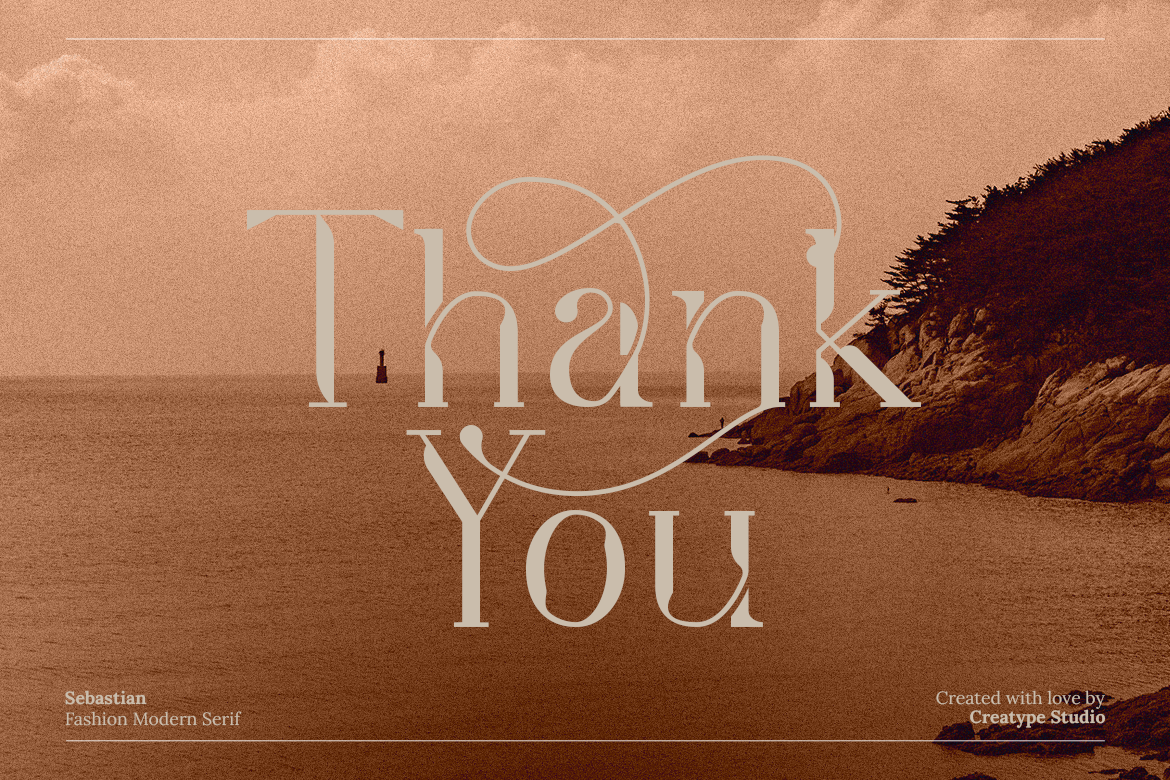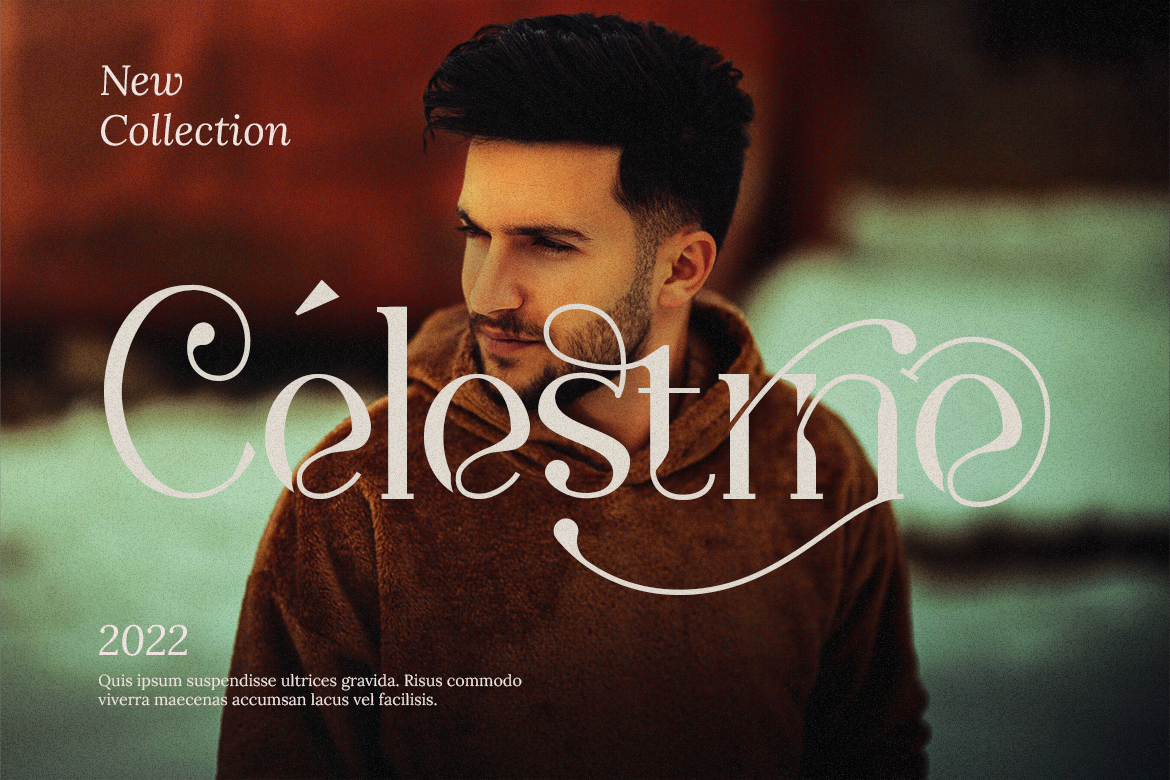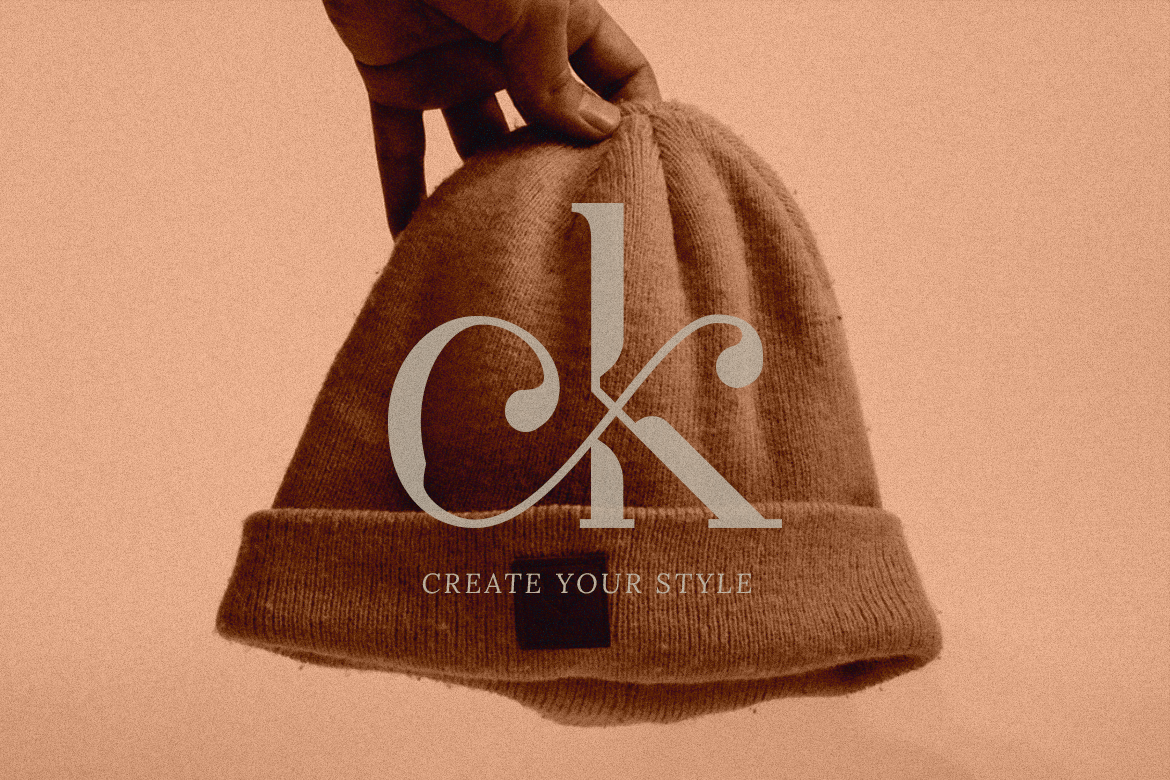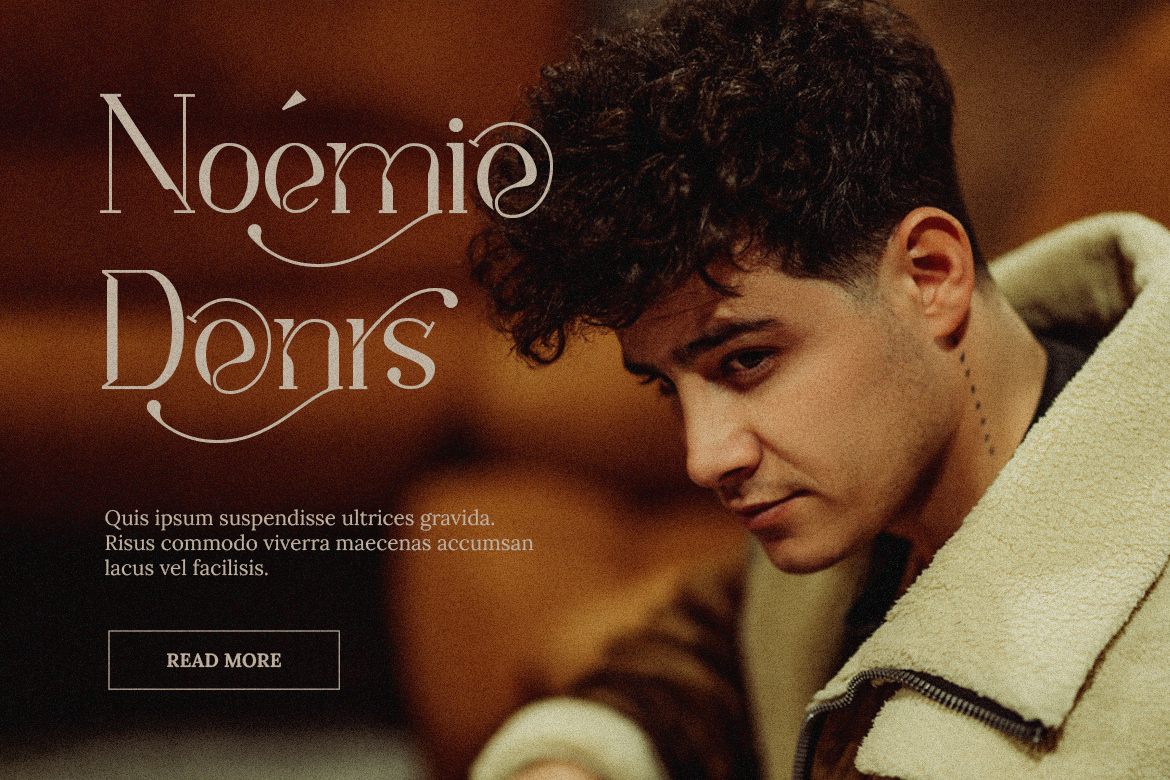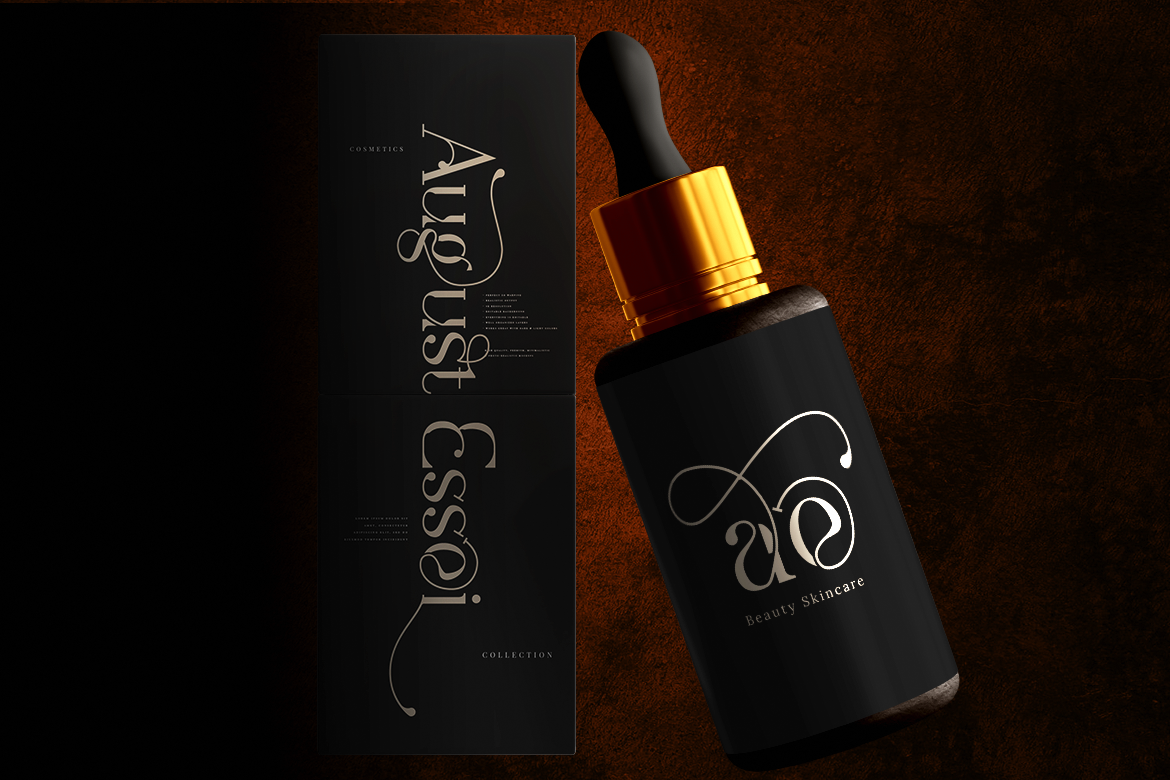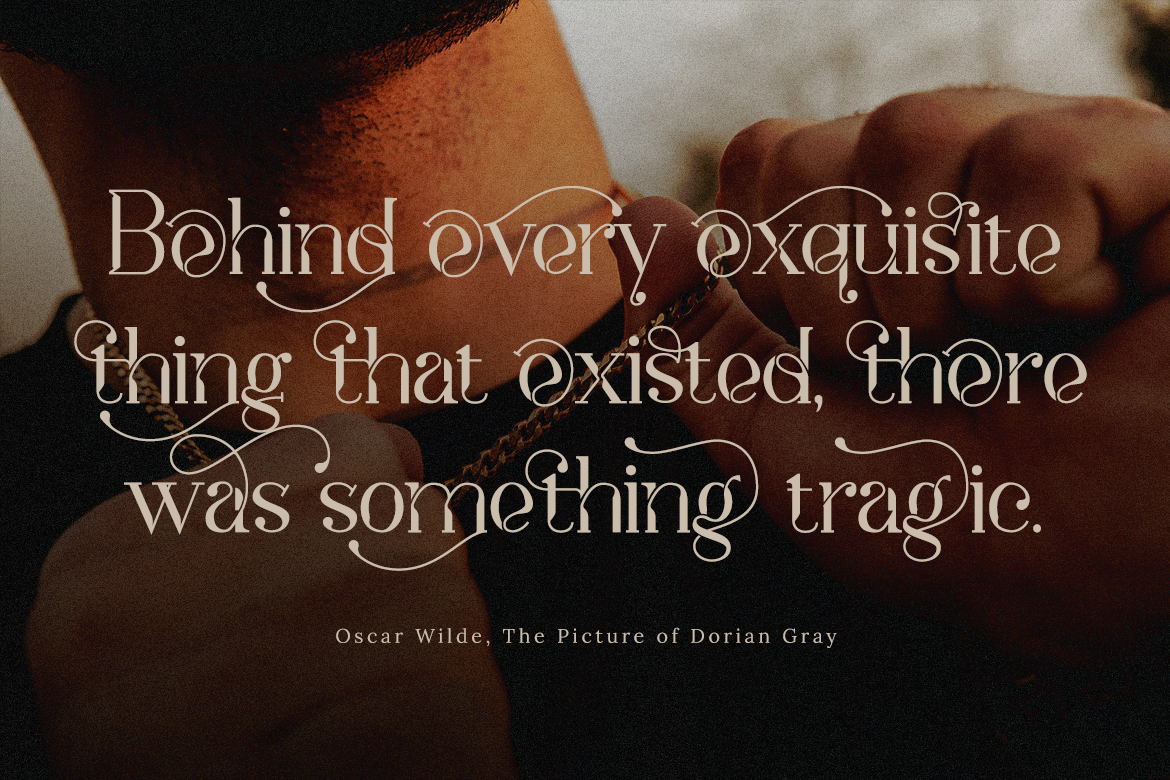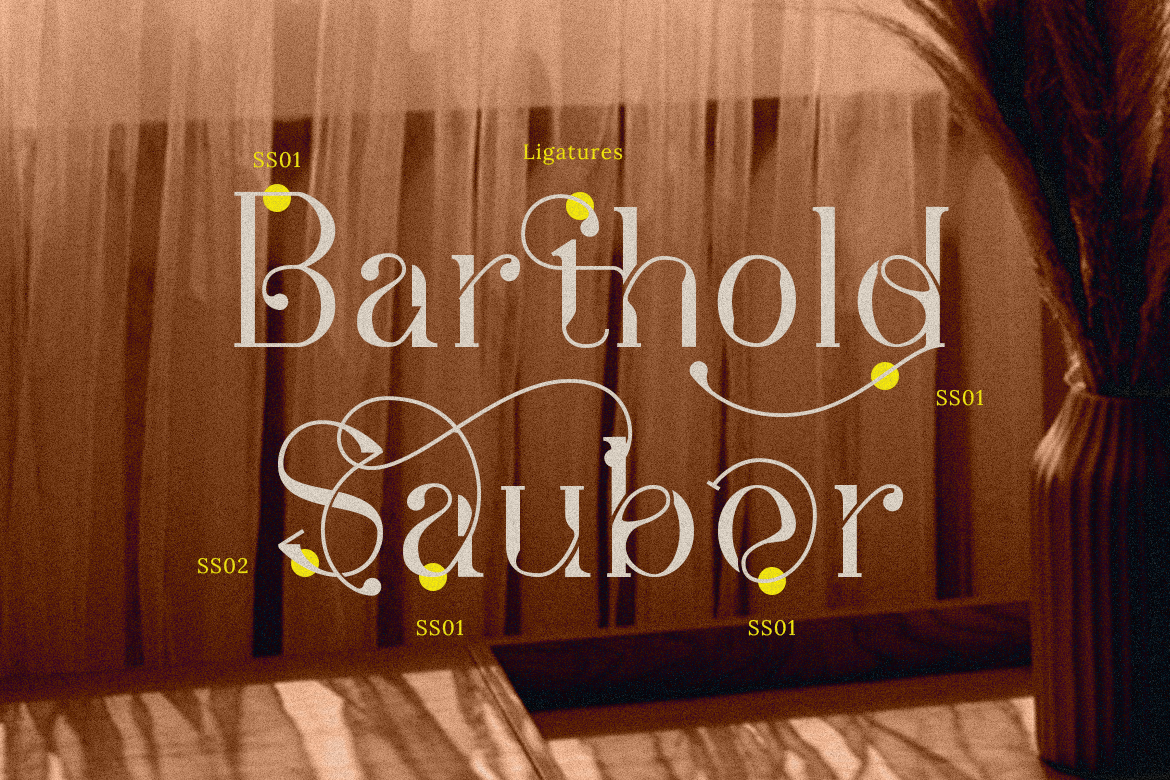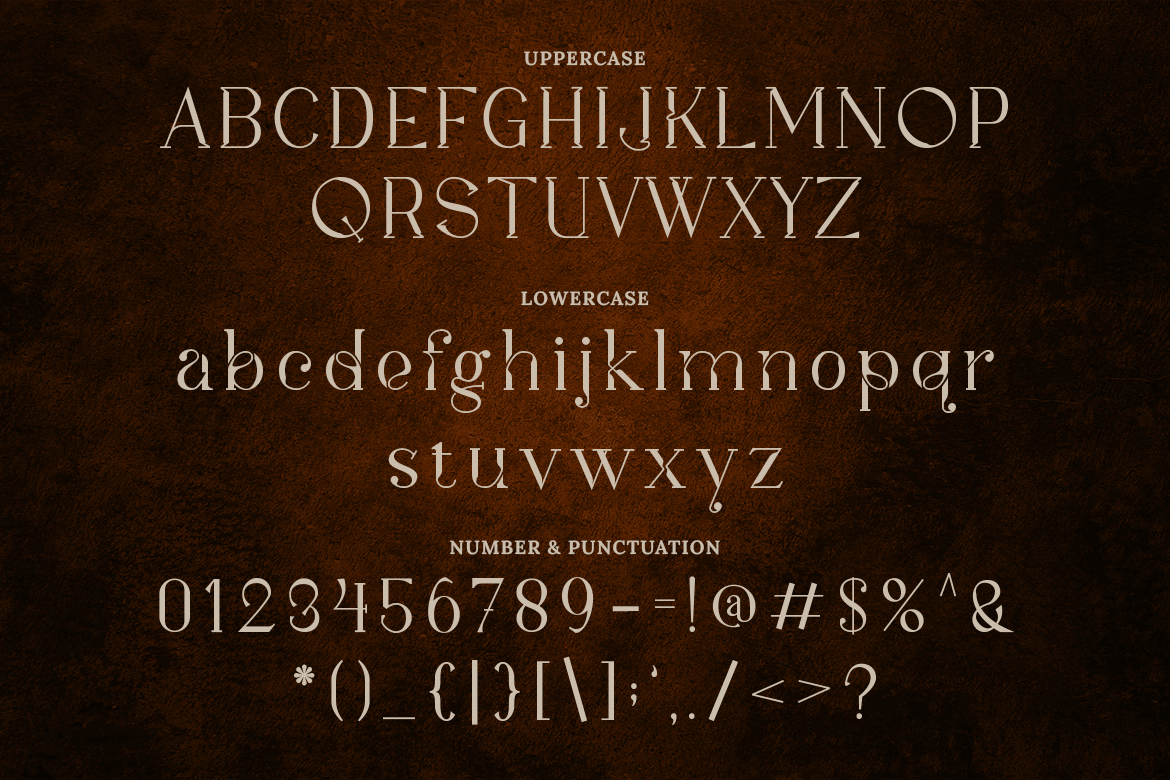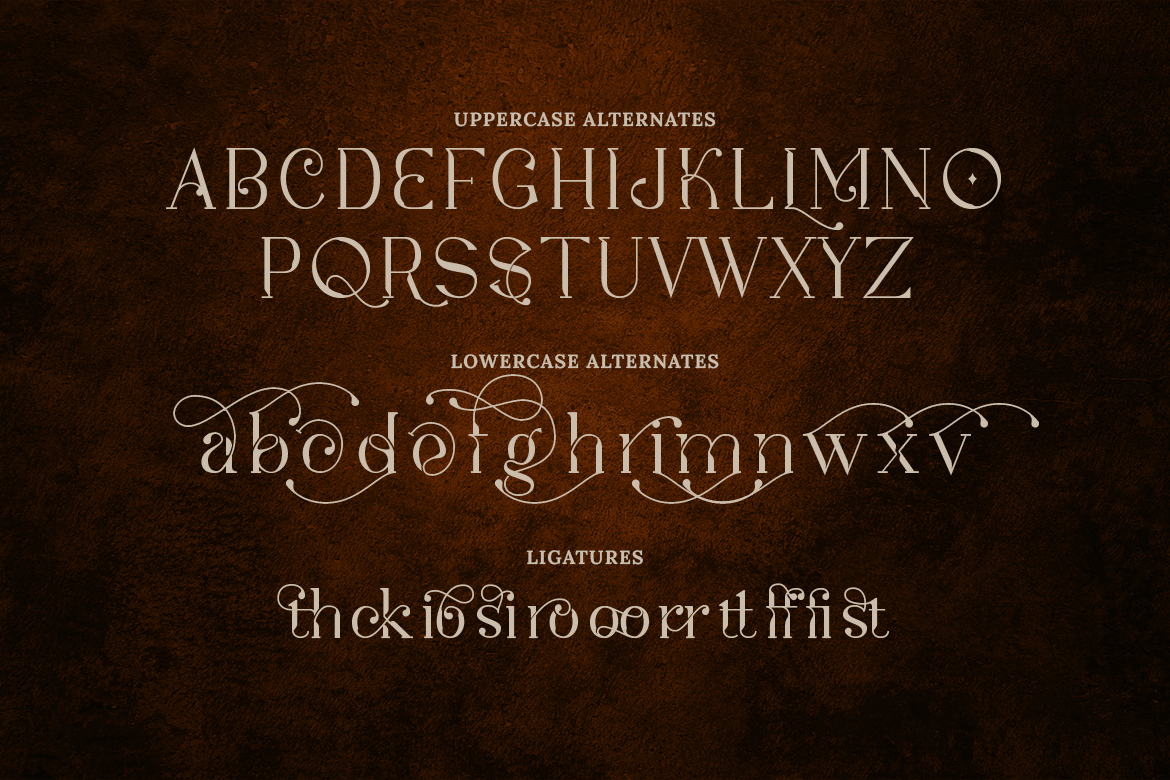
A classy, alluring, and elegant typeface that’s what Sebastian is. Designed carefully to fulfill your design needs. This typeface is the right choice.d.
Sebastian is perfect for branding projects, logo, wedding designs, social media posts, advertisements, product packaging, product designs, label, photography, watermark, invitation, stationery and any projects that need handwriting taste.
Sebastian Fashion Modern Serif Font